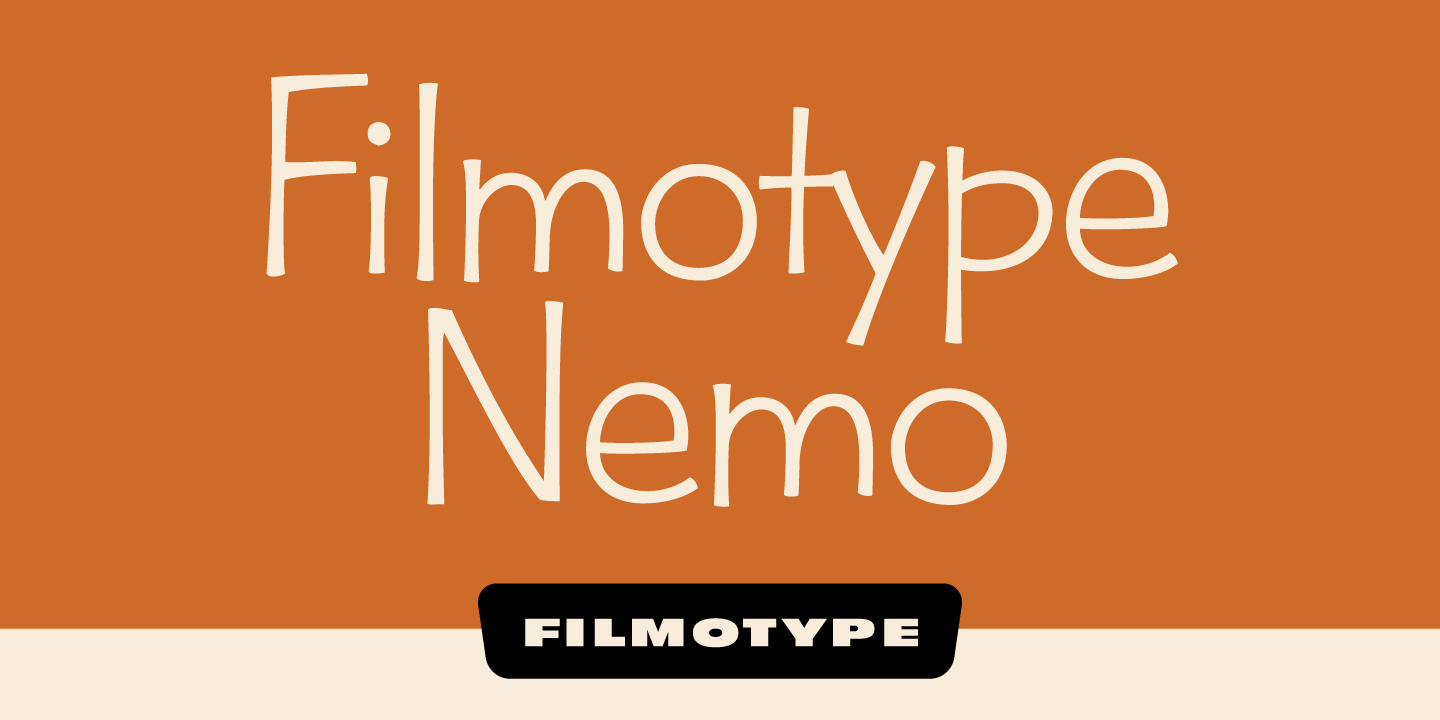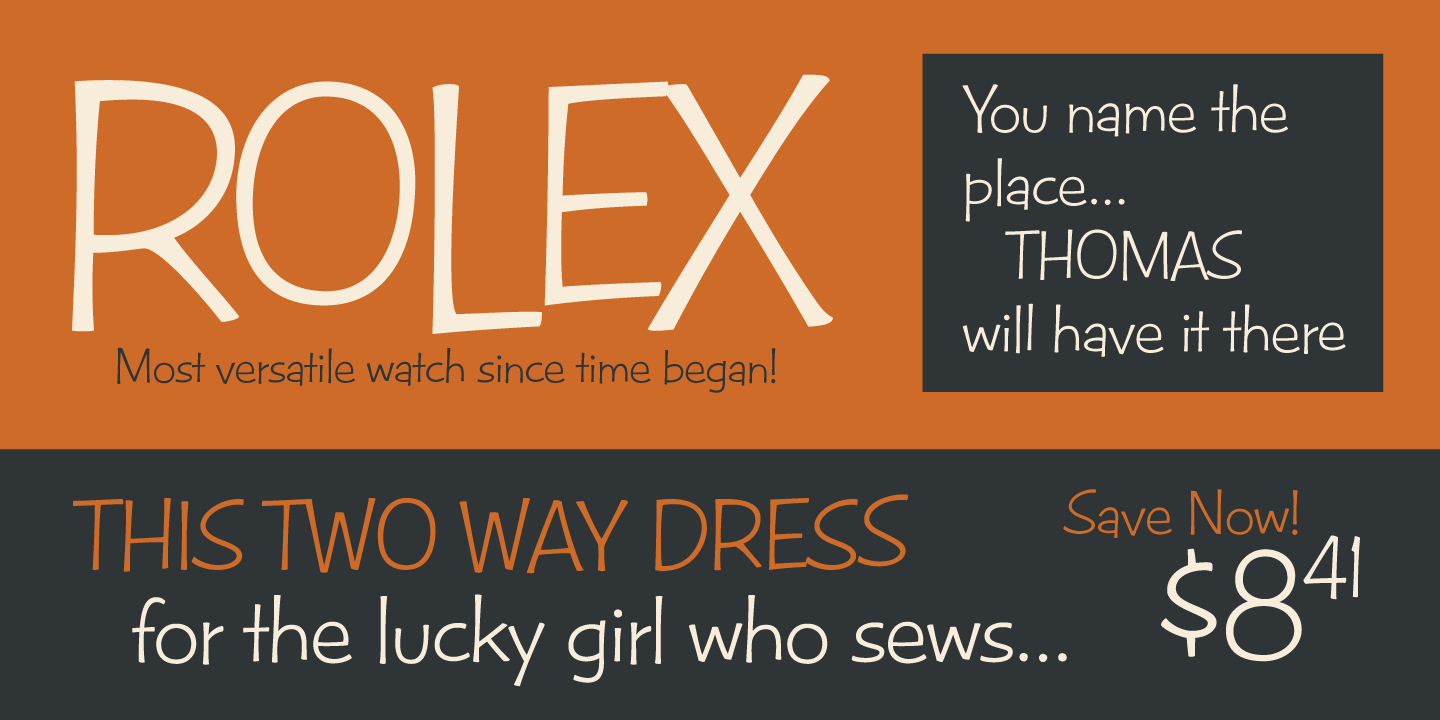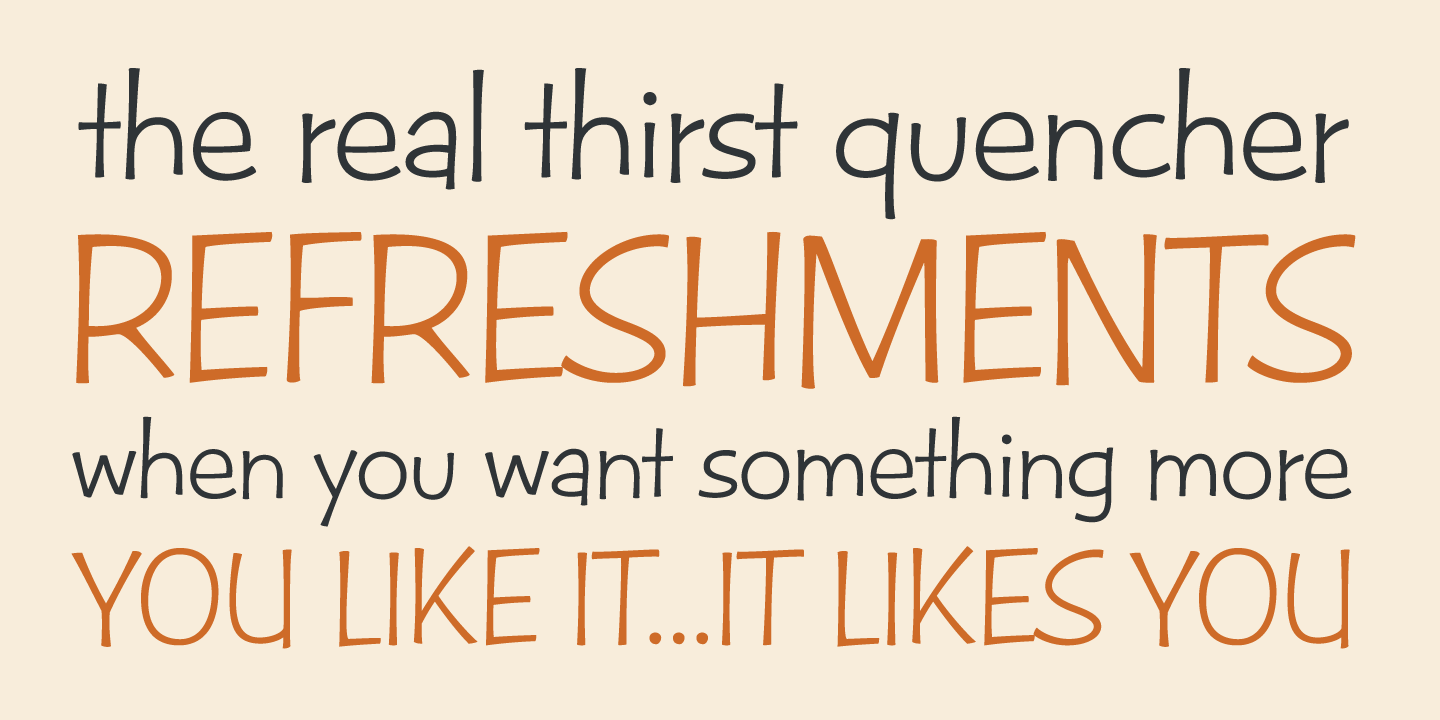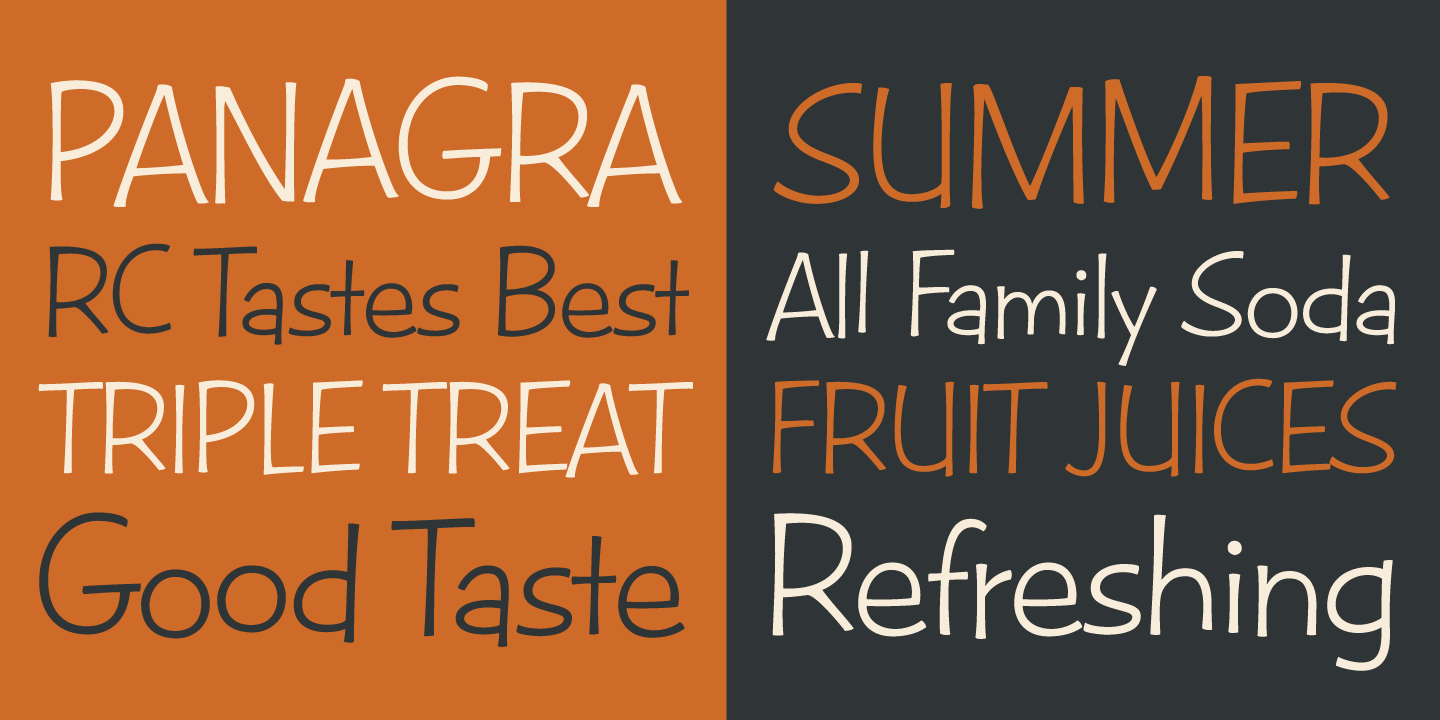
Filmotype Nemo
Font Family by Filmotype
As one of earliest Free Style faces released in the early 1950s by Filmotype, Filmotype Nemo captures the more iconic playful type styles made popular in the early 1950s when a clear message needed to come across as fun to its reader. Filmotype Nemo was remastered and expanded with exacting precision and includes a full international character complement, automatic fractionals, ordinals, and a complete suite of alternate characters in dynamic OpenType format.